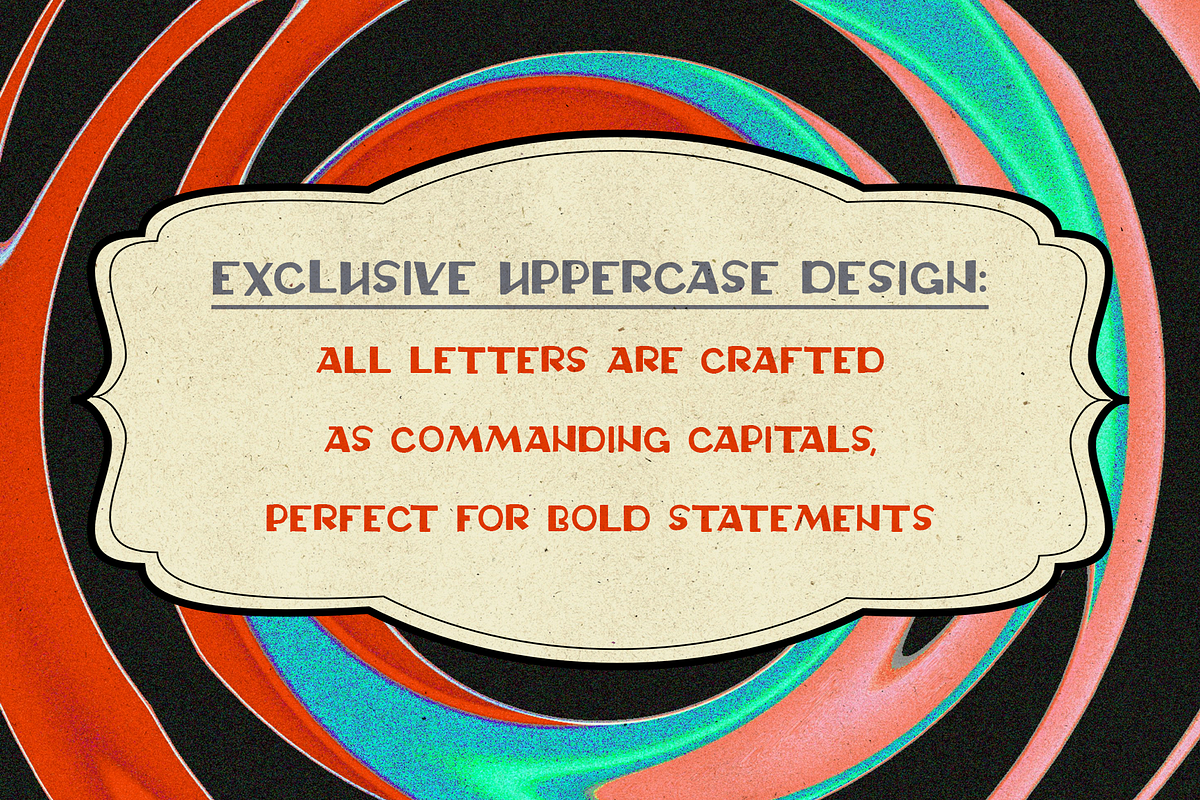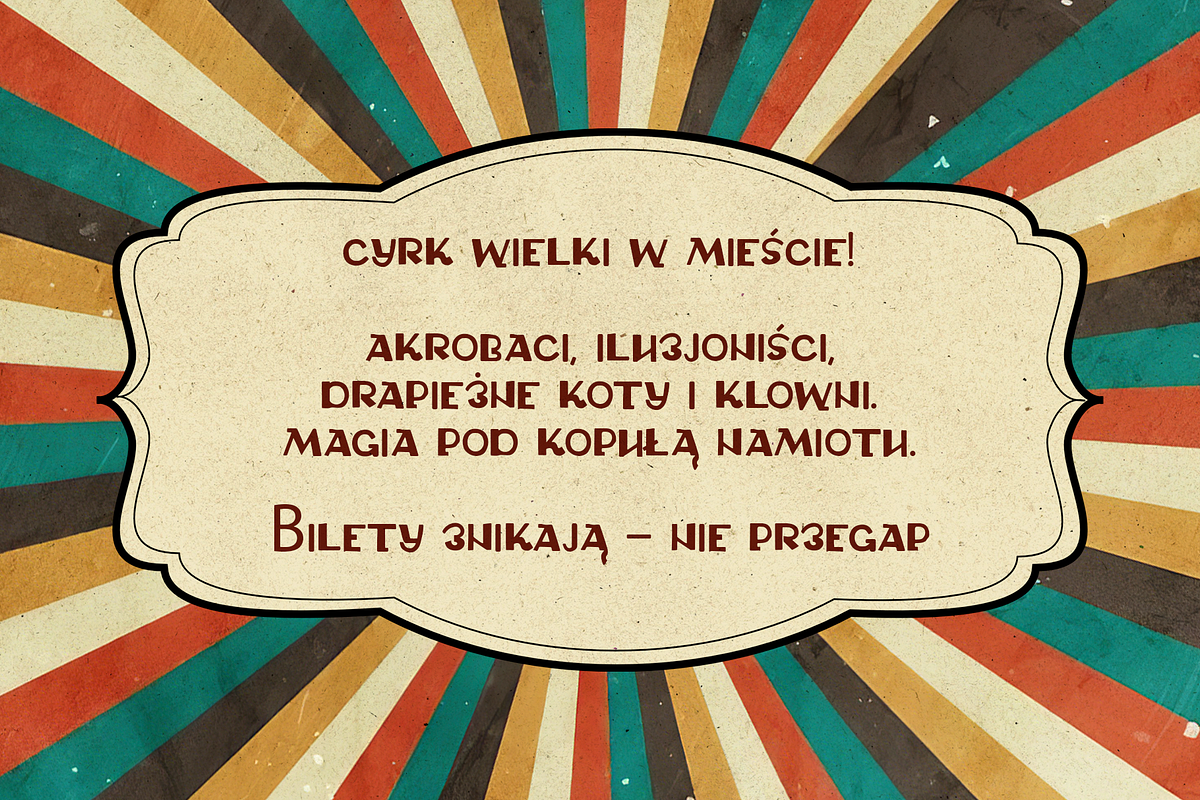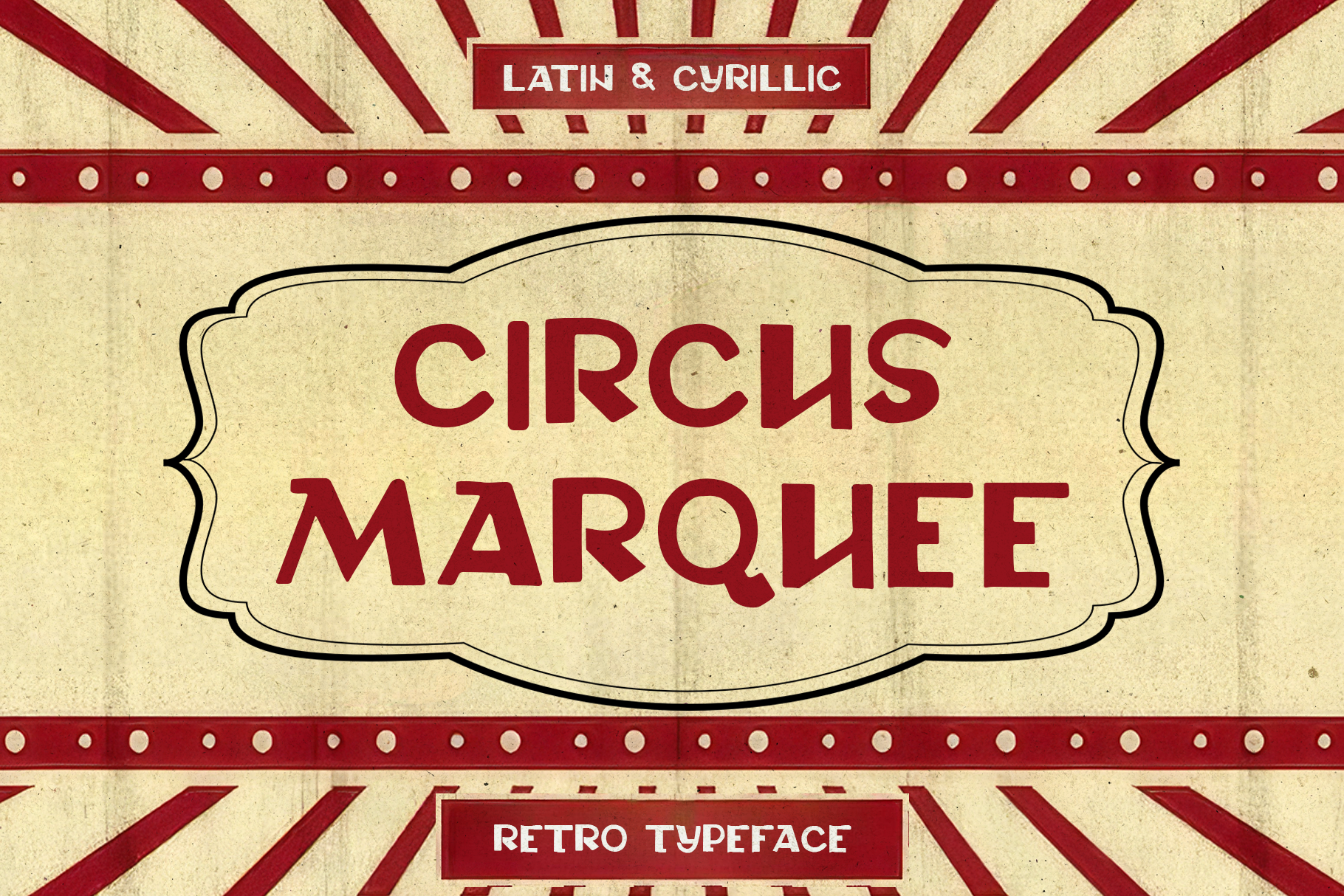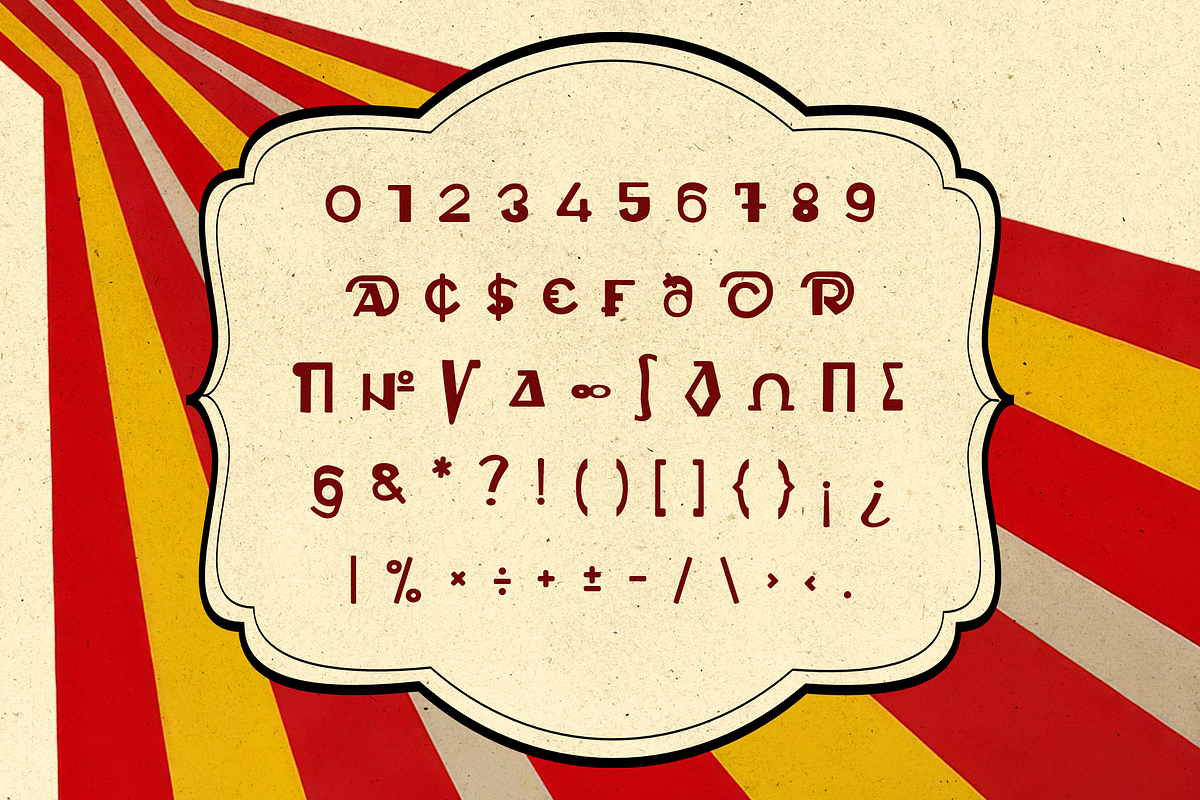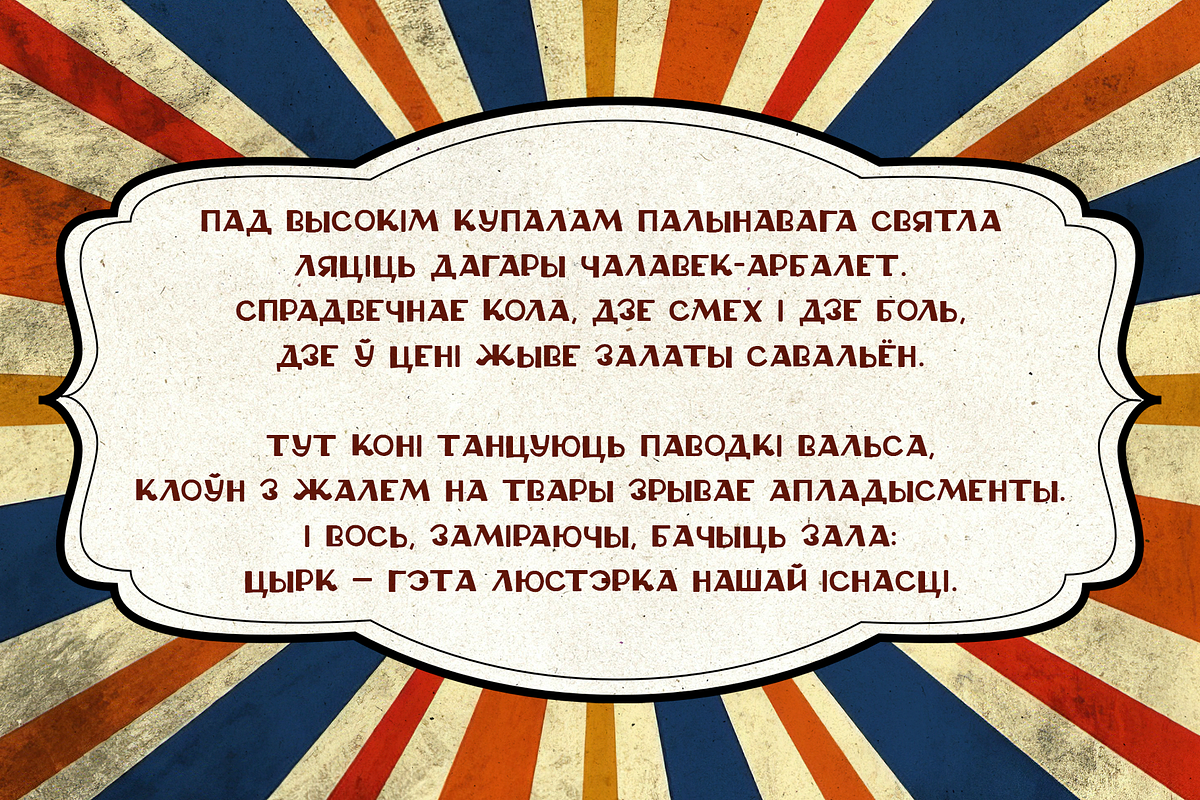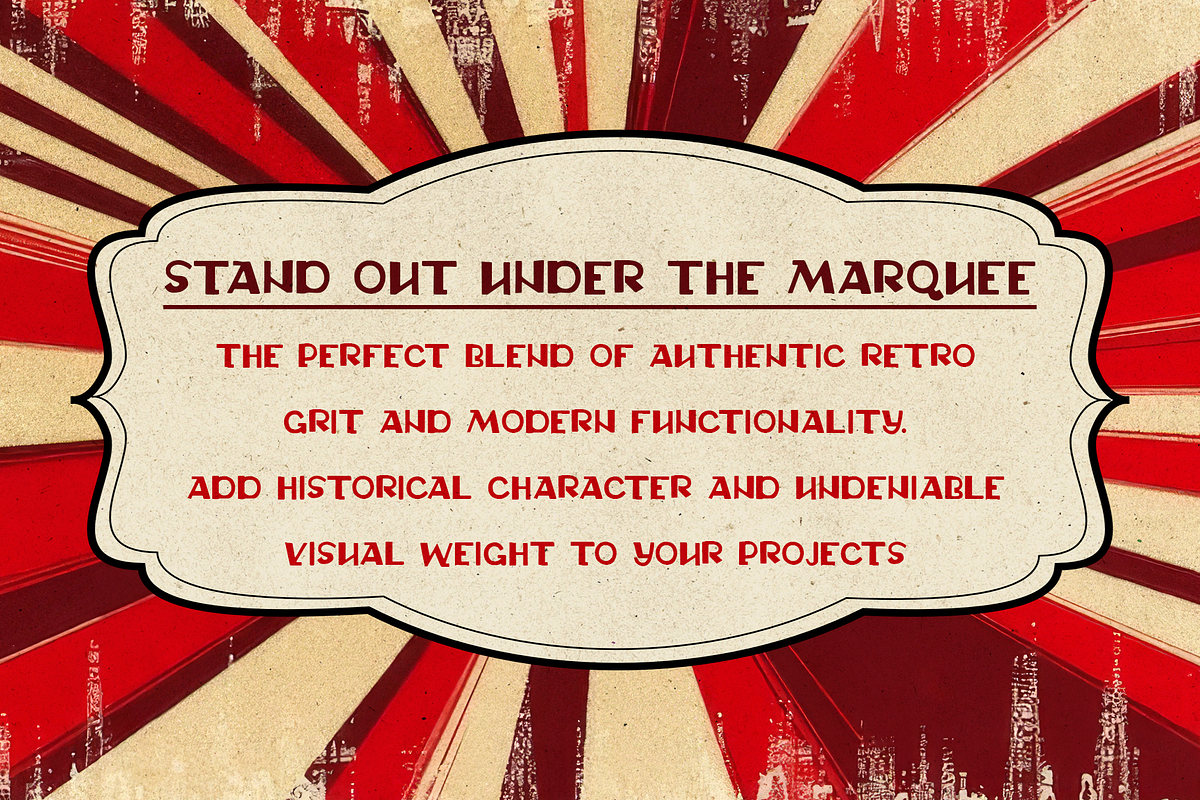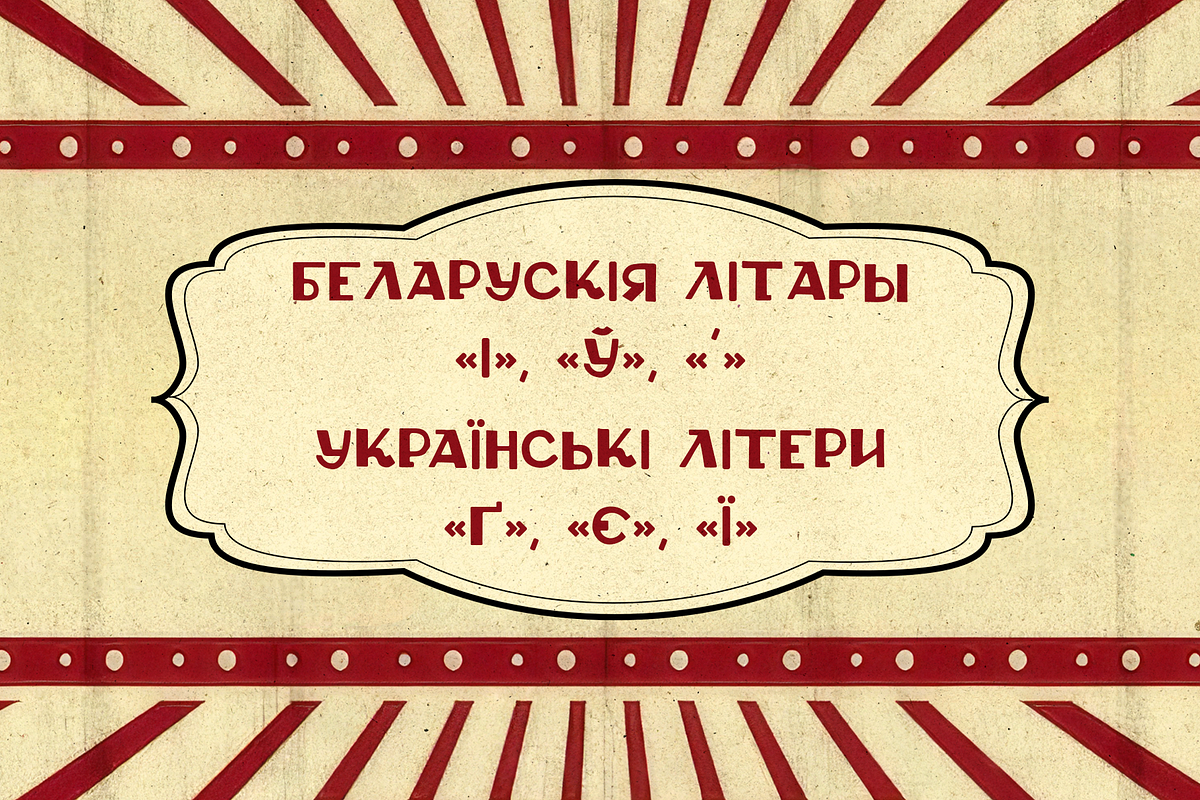
Circus Marquee - Bold Retro Typeface
Circus Marquee Font - Bold Retro Display Typeface with Cyrillic & Latin Support
Step right up and command the spotlight with Circus Marquee, a bold and theatrical display font inspired by the golden age of circus posters and vintage marquees. This isn't just a retro face - it's a functional design tool built to make headlines, logos, and packaging impossible to ignore.
Designed for Headline Drama & Global Reach
Circus Marquee delivers authentic vintage character without sacrificing utility. It features a complete uppercase set for both Latin and Cyrillic alphabets, allowing you to create striking designs for international audiences from New York to Kyiv. It’s fully equipped with numerals and special characters for most Western European languages, ensuring precision in every project.
Theatrical Uppercase Design: Exclusive all-caps character set crafted for maximum impact and poster-style grandeur.
Dual-Script Versatility: Full support for Latin (A-Z) and Cyrillic (А-Я) letters, providing true typographic authenticity.
Multilingual Readiness: Includes essential glyphs for Spanish, German, French, Scandinavian, and other European languages (Ñ, Ç, Å, Ø, Ä, etc.).
Retro Circus Vibe: Captures the raw, hand-printed energy of big-top posters, sideshow banners, and vintage signage.
Standout Applications: The perfect choice for craft beer labels, festival posters, vintage logos, book covers, t-shirt graphics, and any project demanding bold visual weight.
Why Circus Marquee Wins the Show:
This font masterfully balances raucous historical charm with razor-sharp functionality. It’s the secret weapon for designers who need to inject projects with unforgettable character, weight, and a touch of nostalgic spectacle. When your design needs to stop the scroll and stop traffic, bring in the main attraction: Circus Marquee.
Glyphs: Uppercase Latin & Cyrillic, Numbers, Punctuation, European Diacritics.
Style: Display / Headline